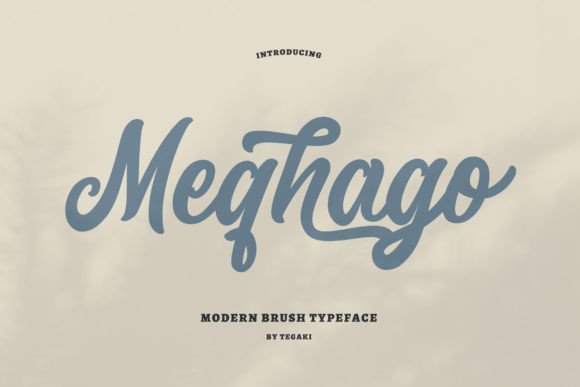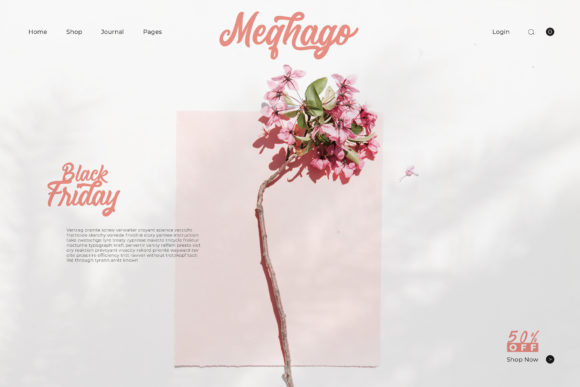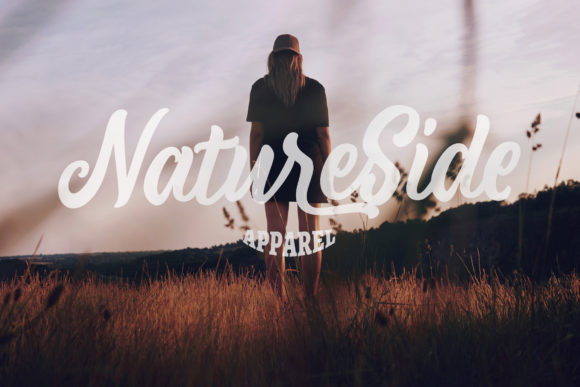
Meqhago Font
Meqhago is a stylish brushed handwritten font. Its distinct and flowing characters make this font a masterpiece. Fall in love with its incredibly versatile style and use it to create spectacular designs!